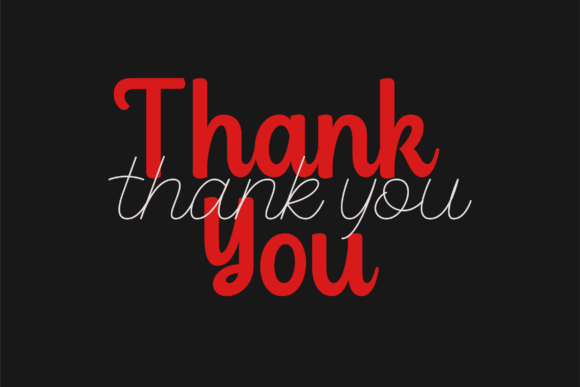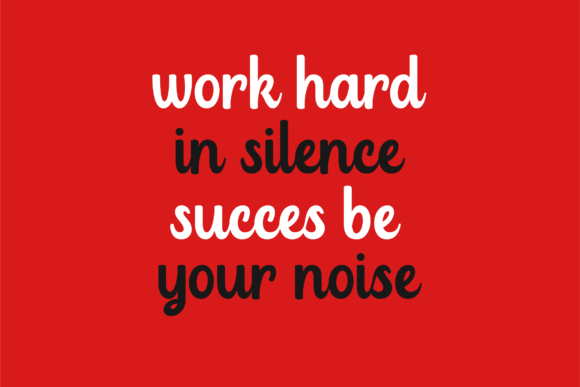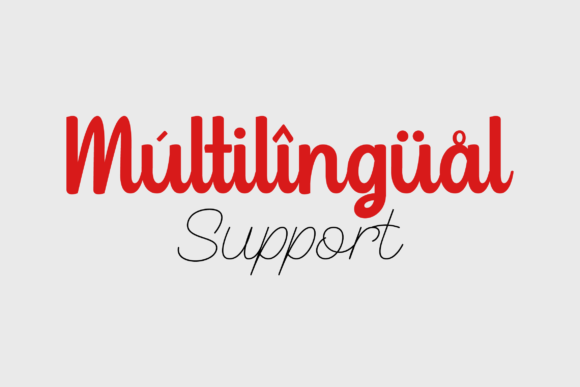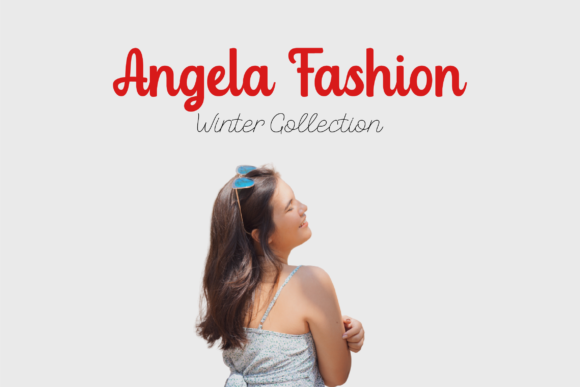
Kawula Moeda Script Font
This is a graceful and charming script font. It has beautiful and well balanced characters and as a result, it matches a wide pool of designs.